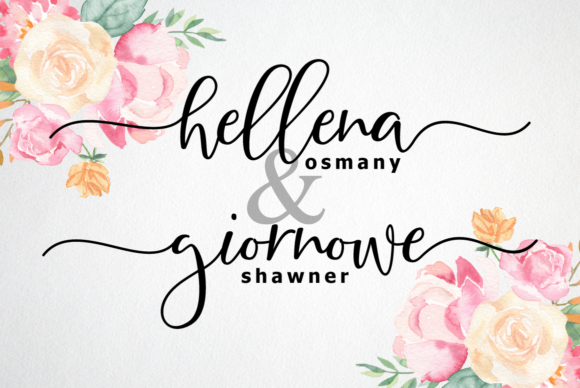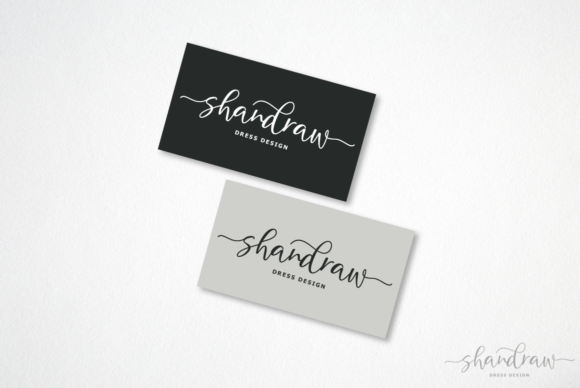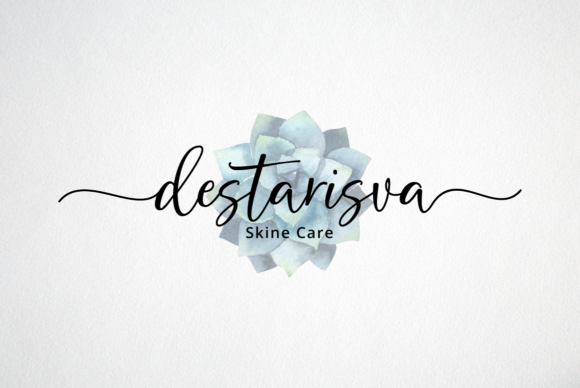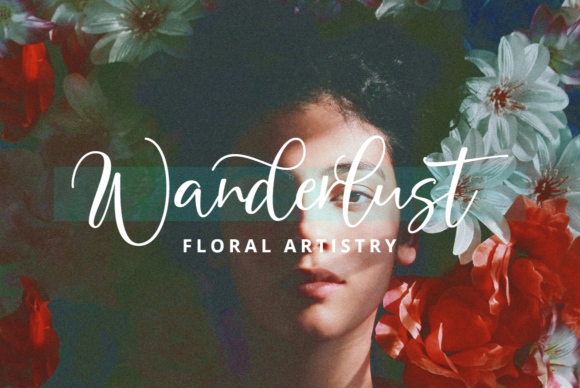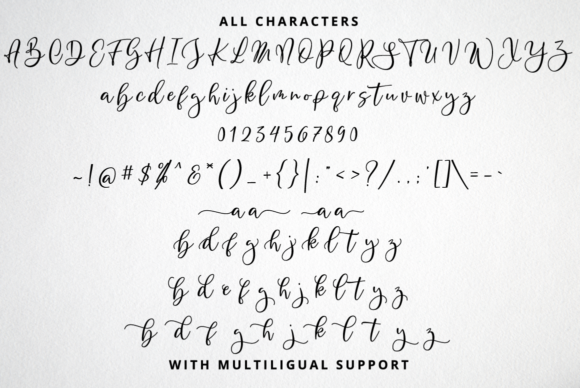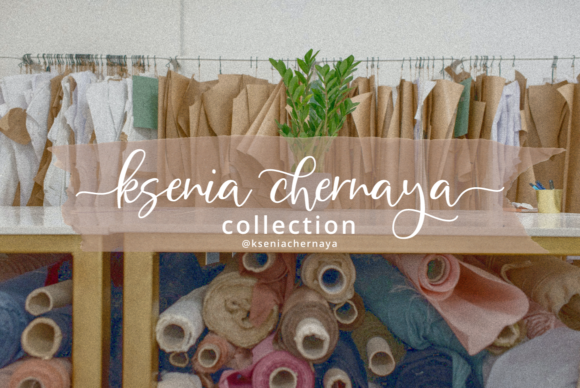
Unleashing the Beauty of Handwritten Typography
There’s nothing quite like the feeling of creating something special – the click of the pen, the swirl of the brush, the gentle flow of the keyboard. For designers, it’s that moment when a project comes together and the final product exceeds our expectations. For us, that moment often starts with the perfect font.
Enter the Barthley Font, a stylish and elegant script font that adds a touch of sophistication to any design. Whether it’s a wedding invitation, a thank you card, or a logo, this font is the perfect choice for designers who want to create something truly special. With its PUA encoding, accessing all of the glyphs and swashes is a breeze, making it a valuable addition to any designer’s toolkit.
Barthley Font Key Features
- Unique Characteristics: This font features a unique blend of modern and traditional elements, with distinctive letterforms and a subtle flair that adds character to any design.
- Font Style: Barthley Font is available in both regular and bold weights, providing designers with flexibility to create a range of visual effects.
Barthley Font Review
As a designer, I’ve had the chance to work with the Barthley font, and I must say it’s a mixed bag. Here’s my honest take:
- Barthley has a unique, elegant feel to it. The curves and lines are well-balanced, making it suitable for a variety of applications.
- The font is highly legible, even at small sizes. I’ve used it for body text in brochures and websites, and it’s performed well.
- The font family is quite extensive, with several weights and styles to choose from. This makes it easy to find the perfect fit for your design.
- The font can feel a bit too ornate for some designs. If you’re going for a clean, minimalist look, Barthley might not be the best choice.
- The font’s elegance can sometimes make it feel a bit too formal. This might limit its use in more casual or creative projects.
- Some of the weights and styles can feel a bit inconsistent. This might require some tweaking to get the look just right.
Overall, I think Barthley is a solid font that can add a touch of elegance to your designs. However, it’s not a one-size-fits-all solution. Be sure to consider your project’s tone and style before deciding whether Barthley is the right fit.
To get the most out of the Barthley font, use it for headings and titles in your designs. It’s particularly well-suited for creative projects, such as logos, posters, and infographics.
Remember to pair the Barthley font with a clear and readable font for body text to ensure your design is visually appealing and easy to read.